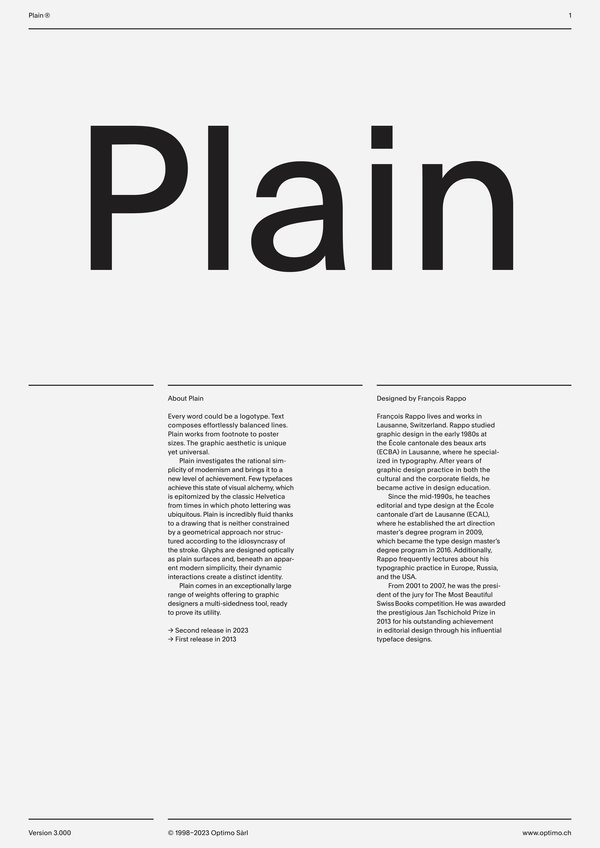
Plain
Case Sensitive Forms
All Caps [cpsp]
Case Sensitive Forms [case]
This function formats the text in uppercase and adjusts spacing between all capital letters. It also applies the ‘Case Sensitive Forms’ feature which replaces certain characters with alternates that are better suited for all capital text, especially related to punctuation.
Contextual Alternates
Contextual Alternates [calt]
This feature adapts the position of a glyph after its surrounding context. For instance, a dash placed between two uppercase letters or numbers will be replaced by an uppercase version of the dash, slightly higher. This feature is usually active by default in Adobe applications.
Tabular Lining Figures
Tabular Lining Figures [tnum–lnum]
Based on the proportions of the capitals, lining figures have an invariable height. With the combination of the tabular spacing format, the width of each numeral is uniformized. This feature is useful when numerals need to all lined up. It facilitates the reading of numbers set within columns or tables. As some applications don’t have access to this feature, proportional figures are set as the default choice.
Proportional Oldstyle Figures
Proportional Oldstyle Figures [pnum–onum]
Based on the design of the lowercase, oldstyle figures have varying ascenders and descenders. Like most of the letters, each number has an appropriate width based on its shape. The combination of oldstyle figures with proportional setting generate numerals perfectly adapted for text.
Tabular Oldstyle Figures
Tabular Oldstyle Figures [tnum–onum]
Based on the design of the lowercase, oldstyle figures have varying ascenders and descenders. With the combination of the tabular spacing format, the width of each numeral is uniformized. This feature is useful when numerals need to all lined up. It facilitates the reading of numbers set within columns or tables.
Fractions
With this feature, any numbers separated by a slash will automatically turn into a fraction. To fit in fraction configuration, numerals have been designed smaller and their weights have been adjusted to suit the typeface.
Lowercase math symbols
Stylistic Set 6 [ss06]
This feature activates alternate lowercase positioning of mathematical symbols.
This feature replaces any letter following a numeral with its matching superior letters. French language uses the ordinal indicators such as ‘er’ for 1er premier, while Spanish, Portuguese and Italian require the feminine and masculine ordinals ‘a,’ ‘o’ for 1º, 1ª. Ordinals are designed to match the weight of the typeface.
Slashed Zero
Slashed Zero [zero]
Originally created to avoid the confusion between the ‘0’ and the ‘O’, this feature substitutes all zeros in a selected text by a slashed form of the zero.
Slashed Zero Oldstyle
Slashed Zero [zero]
Originally created to avoid the confusion between the ‘0’ and the ‘O’, this feature substitutes all zeros in a selected text by a slashed form of the zero.
Proportional Oldstyle Figures [onum]
Tabular figures are all of equal width. They are only needed when the figures must all line up from one line to the next, as in a table. Proportional figures have varying widths, just like most letters; each number has a width appropriate to its design. Lining figures are all the same height, usually similar to that of capital letters. They are needed for use with all-capital settings.
Multiply sign
Stylistic Set 20 [ss20]
This feature substitutes the letter “x” into the multiplication sign.
Numerators [numr]
This feature substitutes glyphs with their matching smaller alternates. The numerators are the same glyphs that are used to create fractions, their vertical position remains within the capital letters height. These glyphs are reduced in size and designed slightly heavier to keep them consistent with the rest of the font.
This feature substitutes glyphs with their matching smaller alternates and low position glyphs. The denominators are the same glyphs that are used to create fractions, their vertical position remains within the base line. These glyphs are reduced in size and designed slightly heavier to keep them consistent with the rest of the font.
Plain is the accomplishment of years of research by François Rappo, whose Theinhardt family had set a milestone in revivalist Grotesque typeface design. Plain comes in an exceptionally large range of weights offering to graphic designers a multi-sided tool, ready to prove its utility.